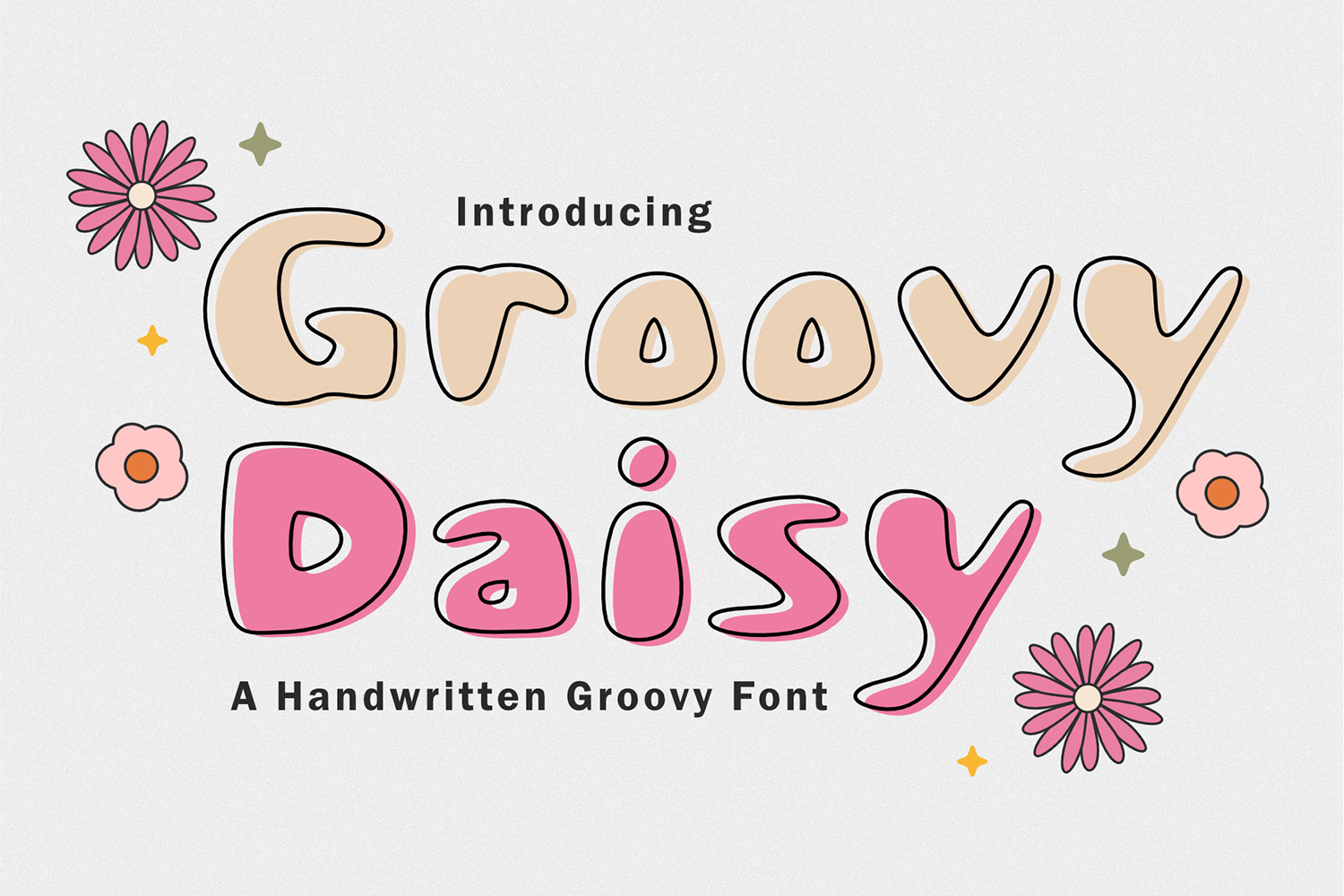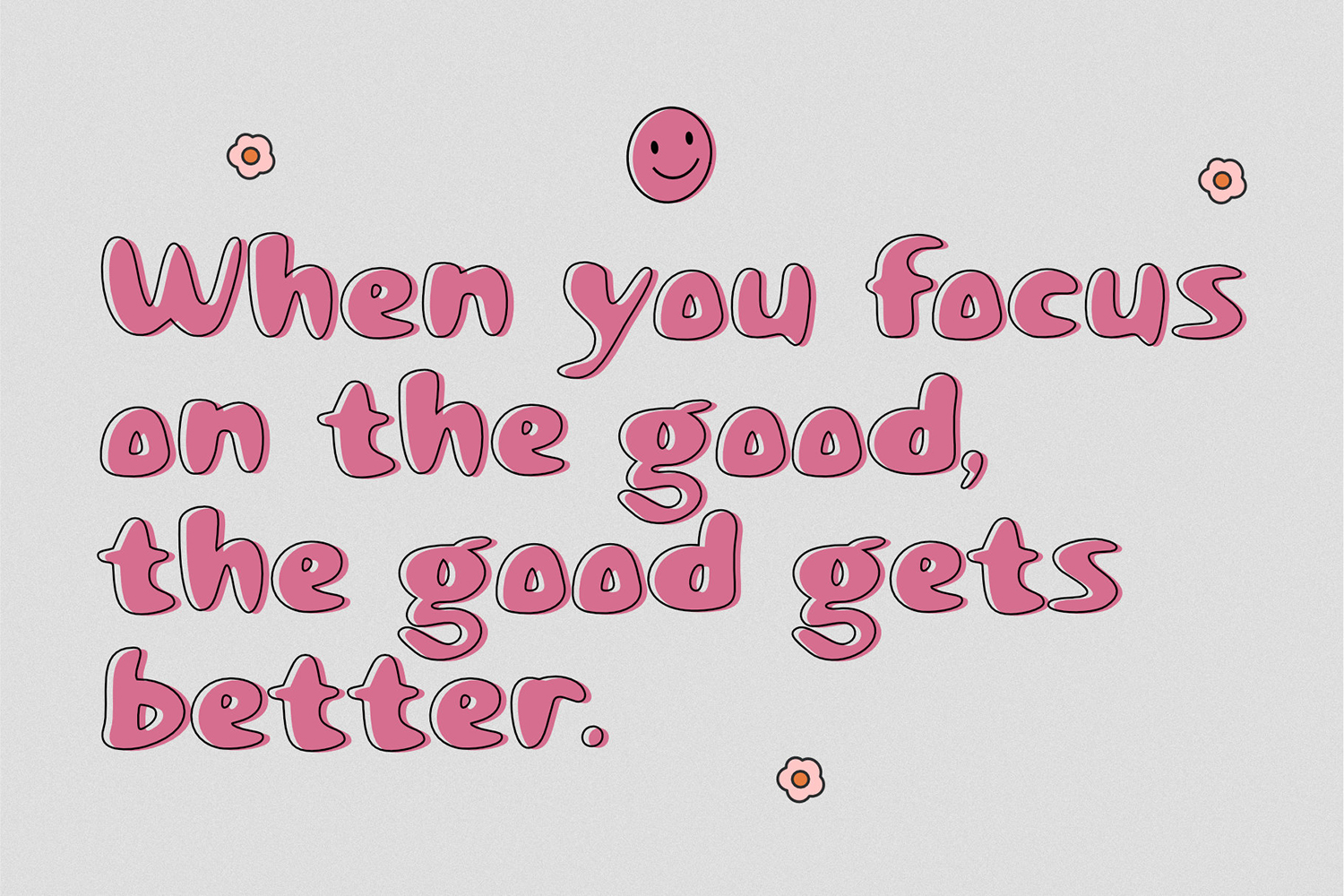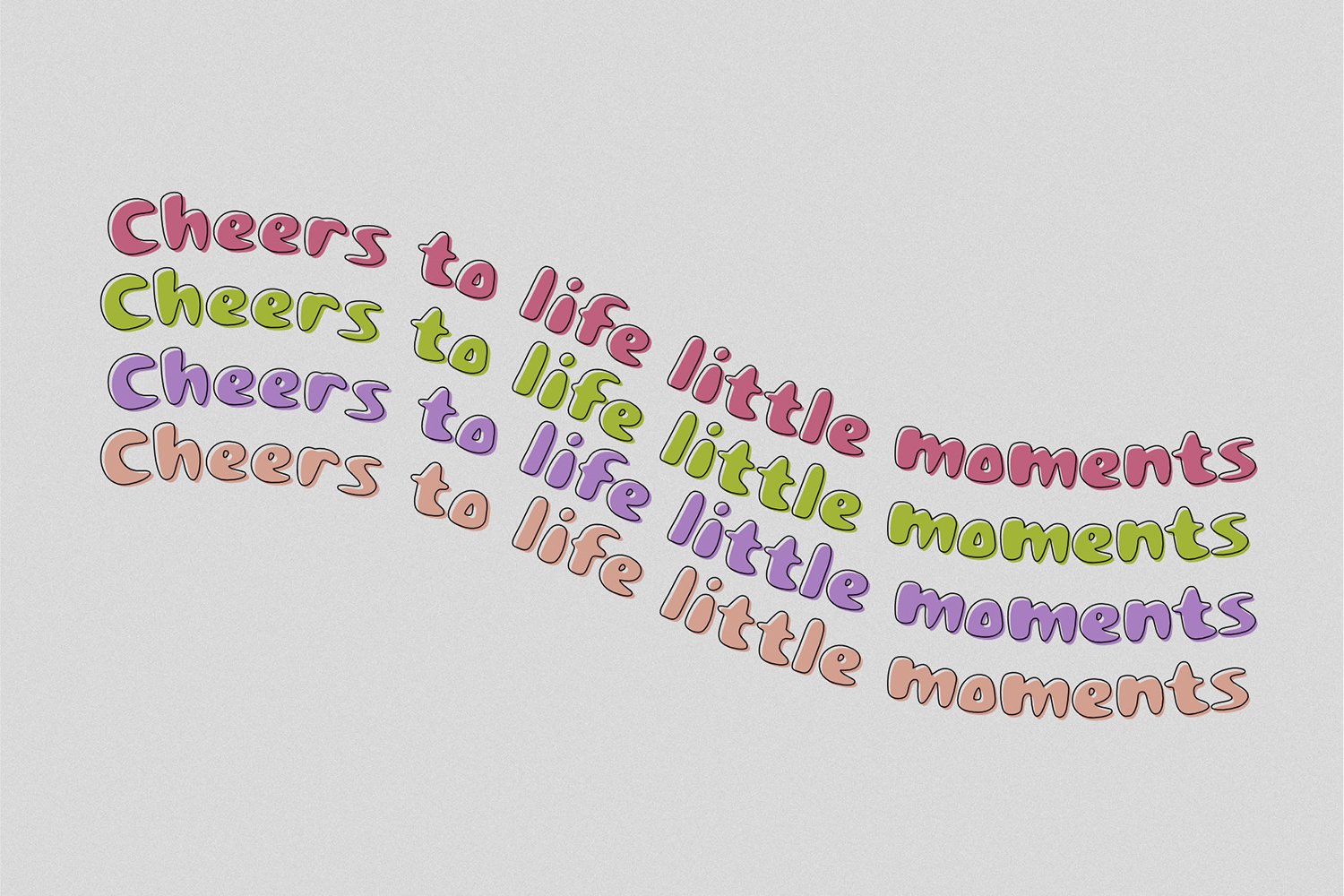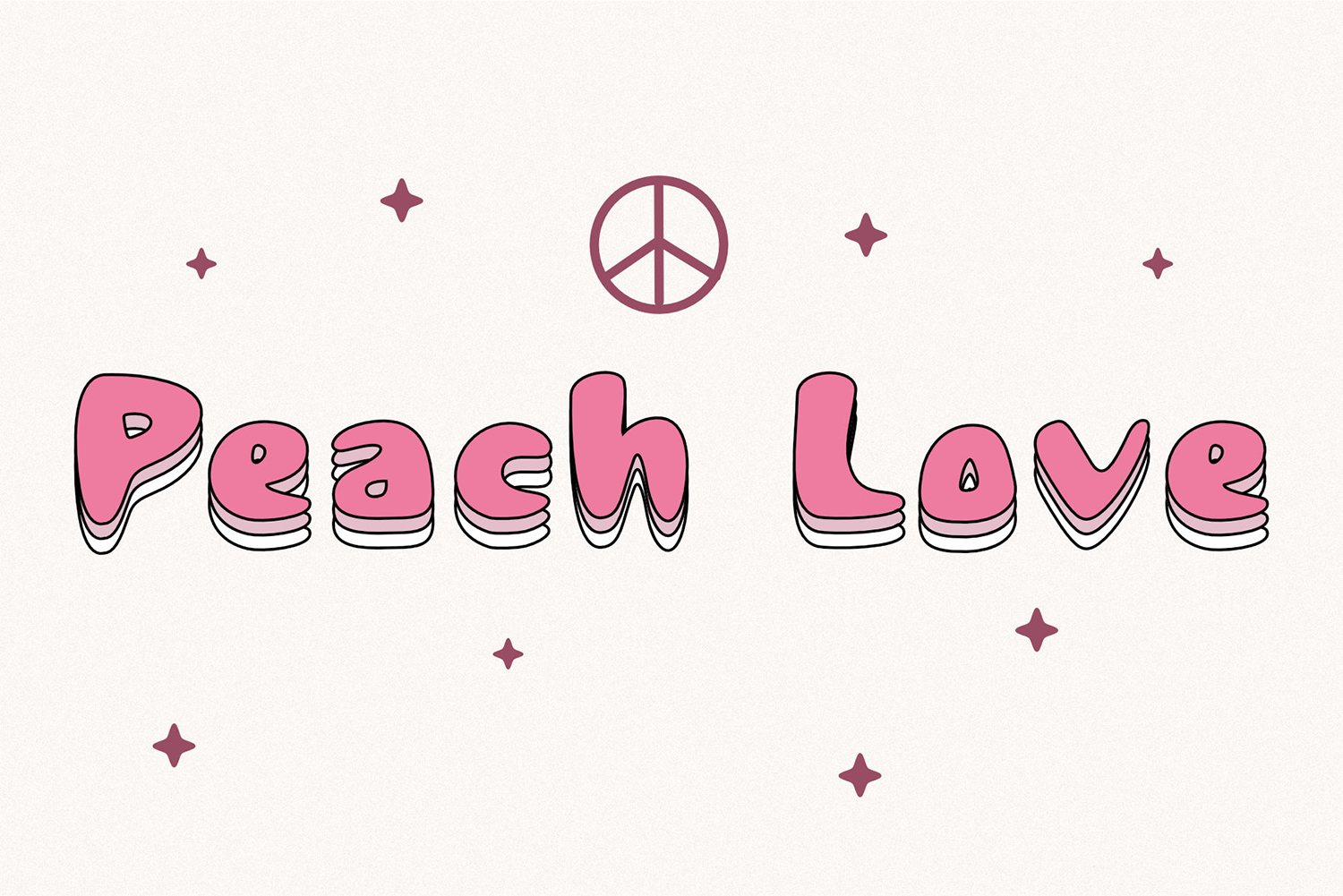
Groovy Daisy Free Font
Introducing Groovy Daisy Free Font – the epitome of fun and playfulness in a display font, exuding a charming retro style. Let your creativity flow with this groovy typeface, perfect for any vintage-themed concept. From illustration posters to stickers, fun graphics to retro-inspired designs, logos to captivating quotes, invitations to engaging blog posts – Groovy Daisy effortlessly embraces a wide range of creative projects, adding a touch of nostalgic flair. Embrace the joy of design as you explore the possibilities of Groovy Daisy, infusing your work with a delightful sense of fun and a dash of retro charm. Get ready to embark on a vibrant journey through time, where creativity knows no bounds. This free typeface was designed by a talented Jimtype Studio. If you like it don’t forget to check out the full version.